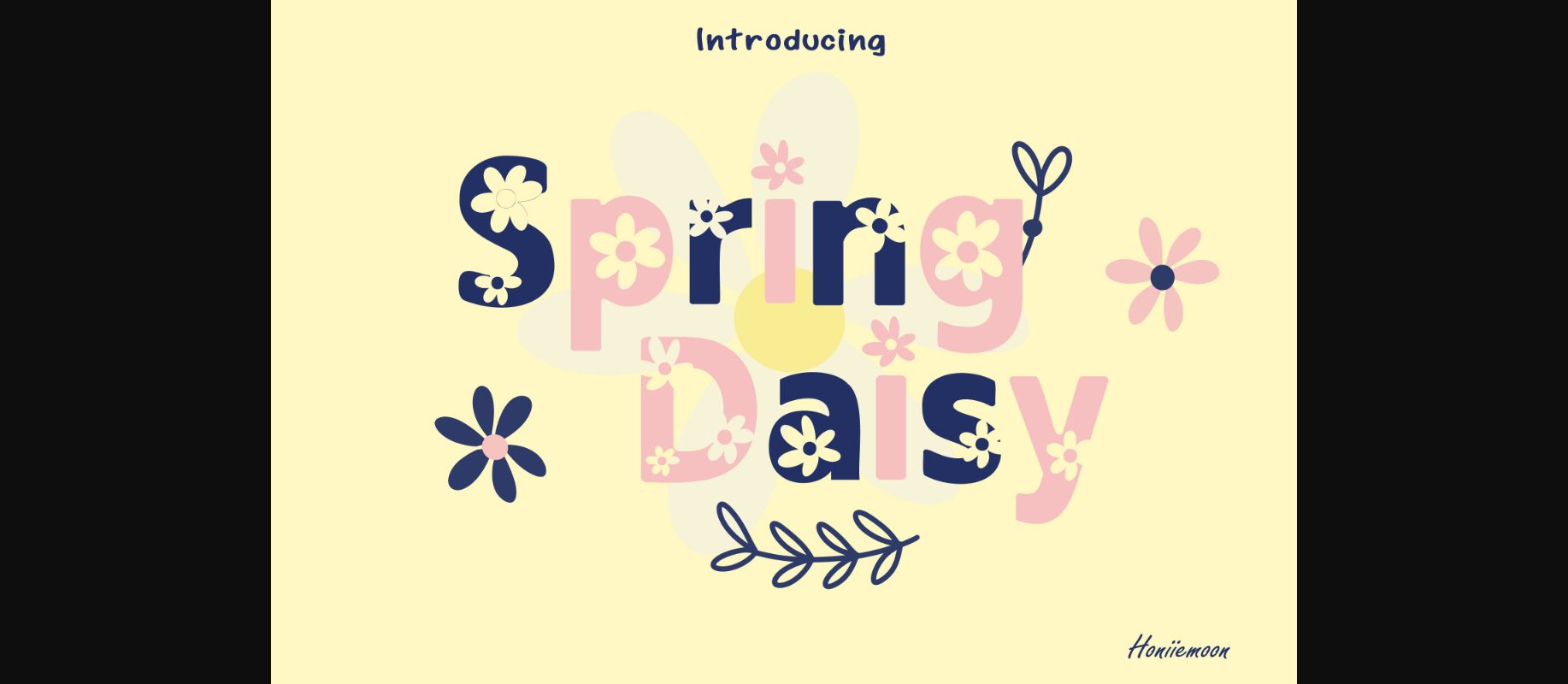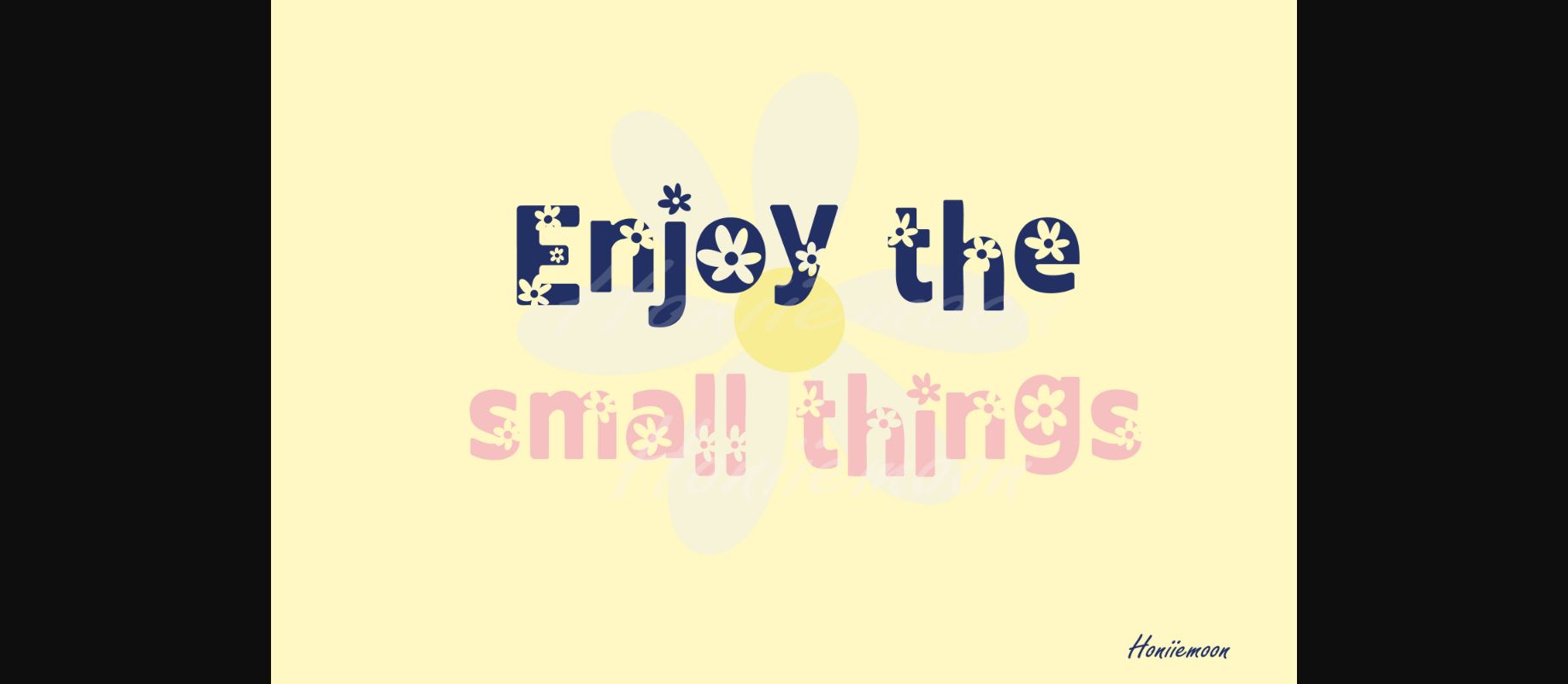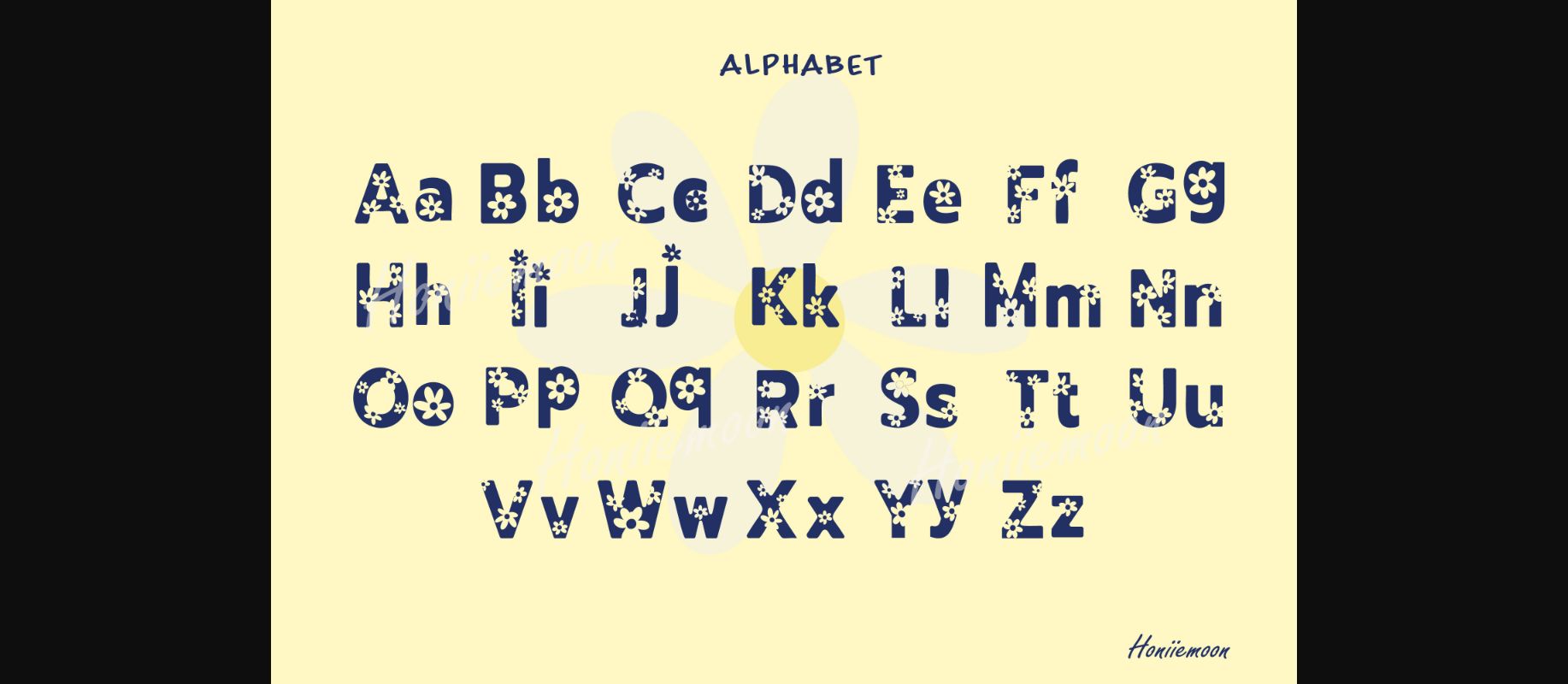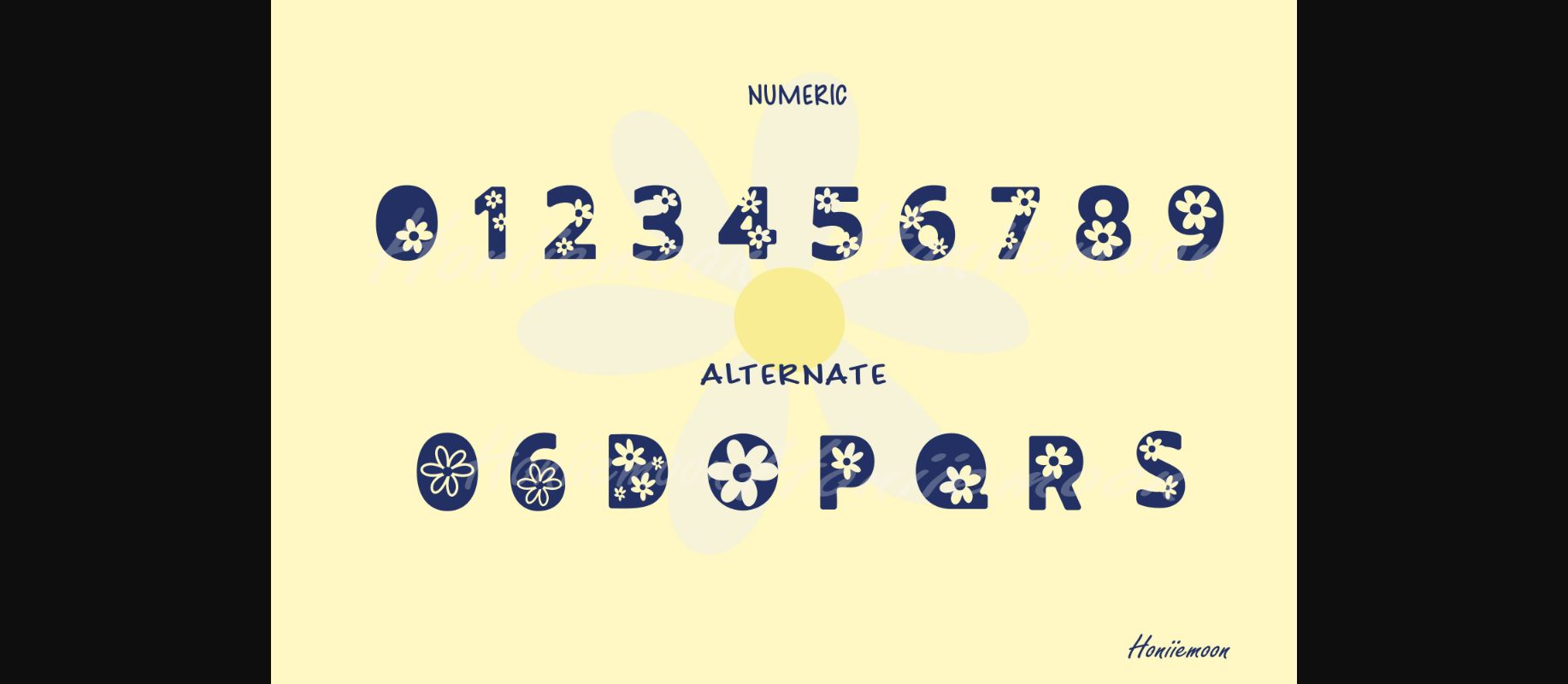
Spring Daisy is a cool and fun decorative font. It looks both cute and jolly and it will enhance each of your designs. The only limit is your imagination.